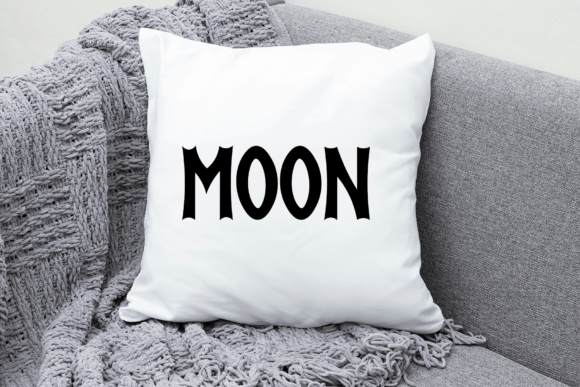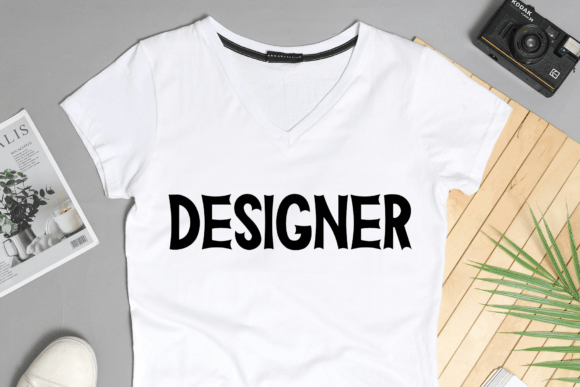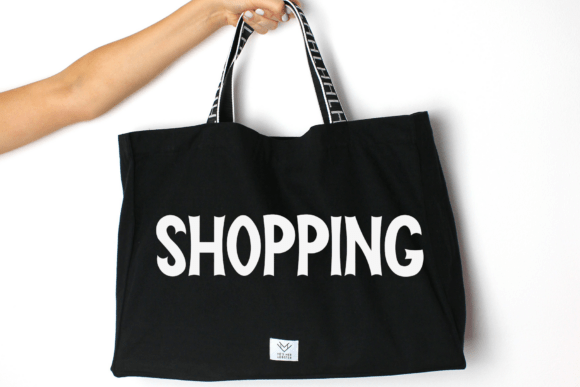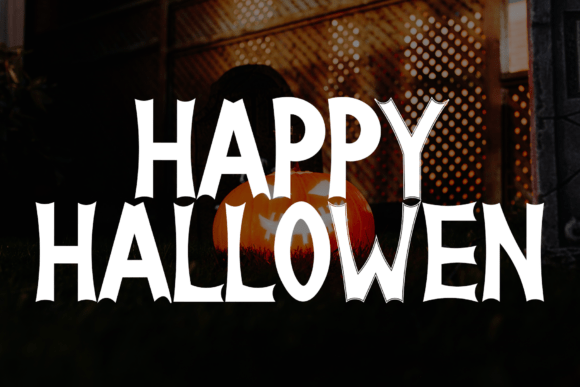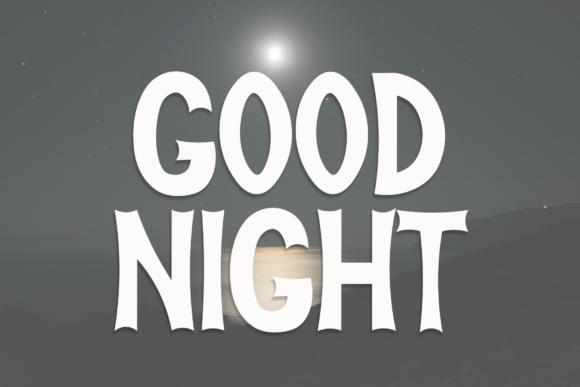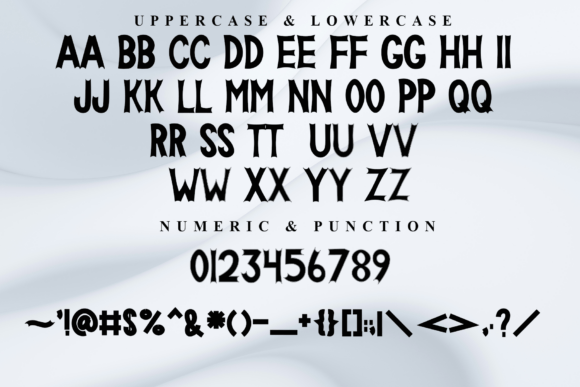
Deck the Halls with Typography: The Magic of Black Angel Font
It’s that time of the year when creativity knows no bounds, and the holiday season is in full swing. You’re rummaging through your stash of festive decorations, baking cookies, and sipping hot cocoa. But, have you ever stopped to think about the typography that brings your holiday designs to life? The right font can make all the difference, transporting your audience to a world of wonder and enchantment.
Enter the Black Angel Font, a festive and merry typeface that embodies the spirit of the holiday season. With its decorative elements and whimsical flair, it adds a touch of magic to your designs. Perfect for greeting cards, gift tags, and holiday-themed projects, this font brings a cheerful and nostalgic ambiance to your words.
Key Features of Black Angel Font
- Font Family: Black Angel is a display font, ideal for headlines and titles.
- Character Set: Supports Latin characters and includes a wide range of punctuation marks and symbols.
- Unique Characteristics: Features a gothic-inspired design with bold lines, geometric shapes, and ornate details, making it perfect for creating a dramatic and mysterious atmosphere.
Designer Review: Black Angel Font
Overall, I think Black Angel Font has a lot to offer, especially for those looking for a sophisticated and mysterious vibe. ✨ The font’s sleek and modern design is perfect for creating a sense of luxury and elegance in your designs. I’ve seen it used in high-end branding, advertising, and even in some beautiful wedding invitations.
The font’s unique letterforms and subtle flair make it stand out from more traditional serif fonts. ✨ It’s also incredibly versatile, working well in both digital and print formats. I’ve used it for logos, headings, and even as a body font in some cases.
- ⚠️ Limited font weights: While the font has a nice range of styles, it’s not as extensive as some other fonts on the market. This might limit your design options if you need a specific weight.
- ⚠️ Not ideal for small text: Due to its ornate design, Black Angel Font can be difficult to read in small sizes. This might make it less suitable for body text or other applications where readability is crucial.
Overall, I’d say Black Angel Font is a great choice for designers who want to add a touch of sophistication and mystery to their work. While it may have some limitations, its unique design and versatility make it a valuable addition to any design toolbox.
Getting the Most Out of Black Angel Font
For a dramatic effect, use the Black Angel font in bold and italics. Pair it with contrasting colors to make the text stand out. Experiment with different font sizes to create visual hierarchy in your design.
The Black Angel font is ideal for creating a spooky or mysterious atmosphere in Halloween-themed designs. It’s also suitable for titles, headings, and captions in fashion, beauty, and lifestyle projects.